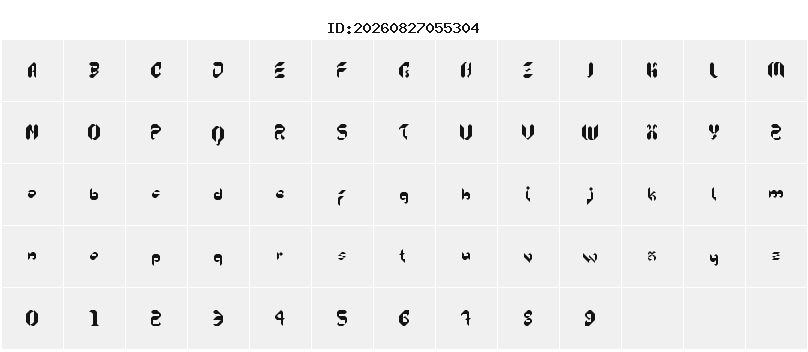
• Font Name: 5Kreeper
• Font ID: FontStruct 5Kreeper
• Full Font Name: 5Kreeper Regular
• PostScript Name: 5Kreeper
• Character Count: 81
• Copyright: Copyright Noah - 11 year old typomaniac 2013
• Designer: Noah - 11 year old typomaniac
• Description: ‚Äú5Kreeper‚Äù was built with FontStruct